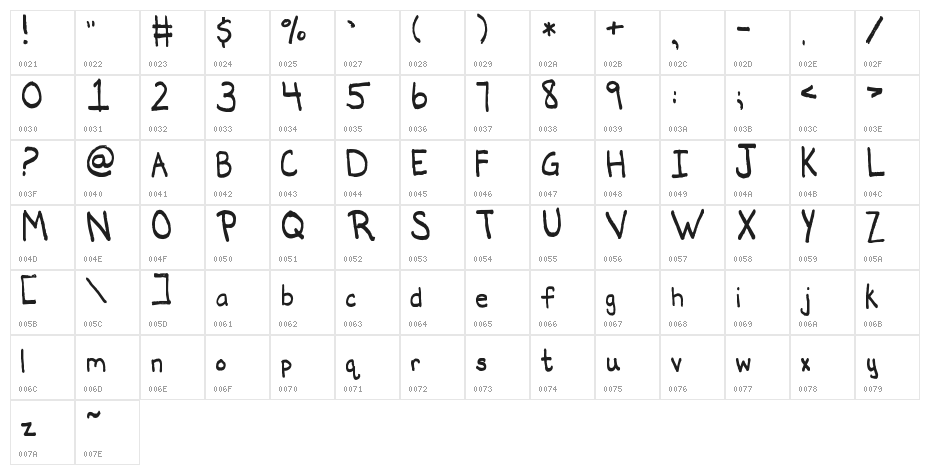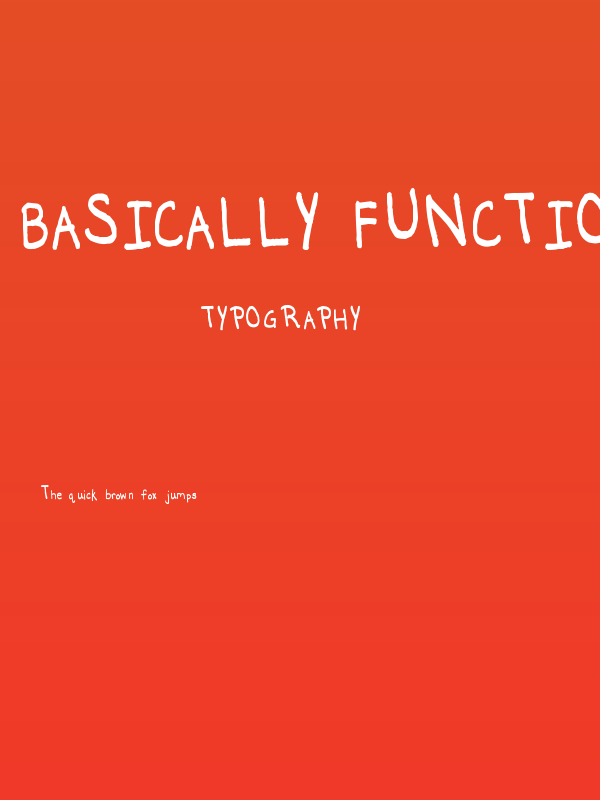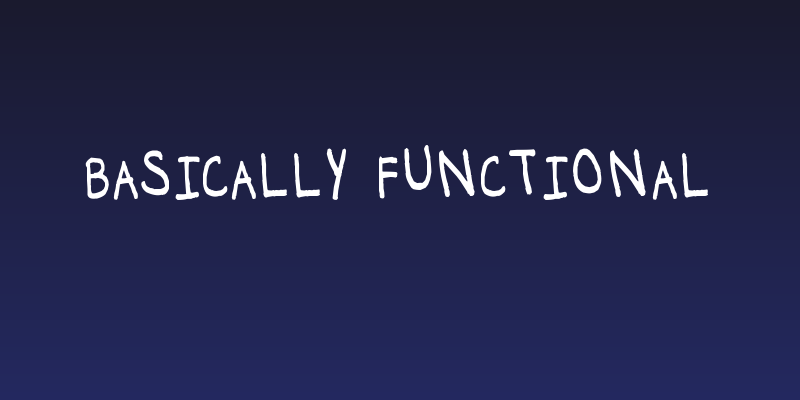
Basically Functional Font
Basically Functional Description
This font exudes a playful and informal vibe, characterized by its hand-drawn appearance. The letters have an uneven, slightly wobbly structure, giving it a casual and approachable feel. The strokes are consistent in thickness, maintaining a uniformity that enhances readability despite its quirky style. The characters are well-spaced, ensuring clarity and legibility. This font is ideal for projects that require a personal touch, such as children's books, casual invitations, or creative branding. Its unique style makes it stand out while remaining functional and easy to read.
| Proposed Projects | Children's books, casual invitations, creative branding, personal projects. |